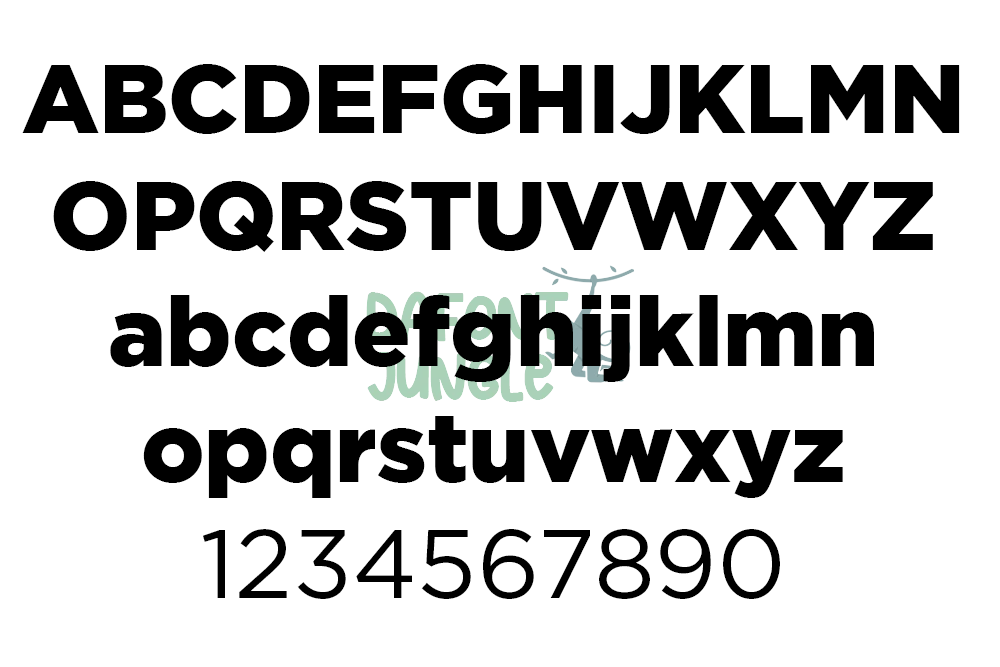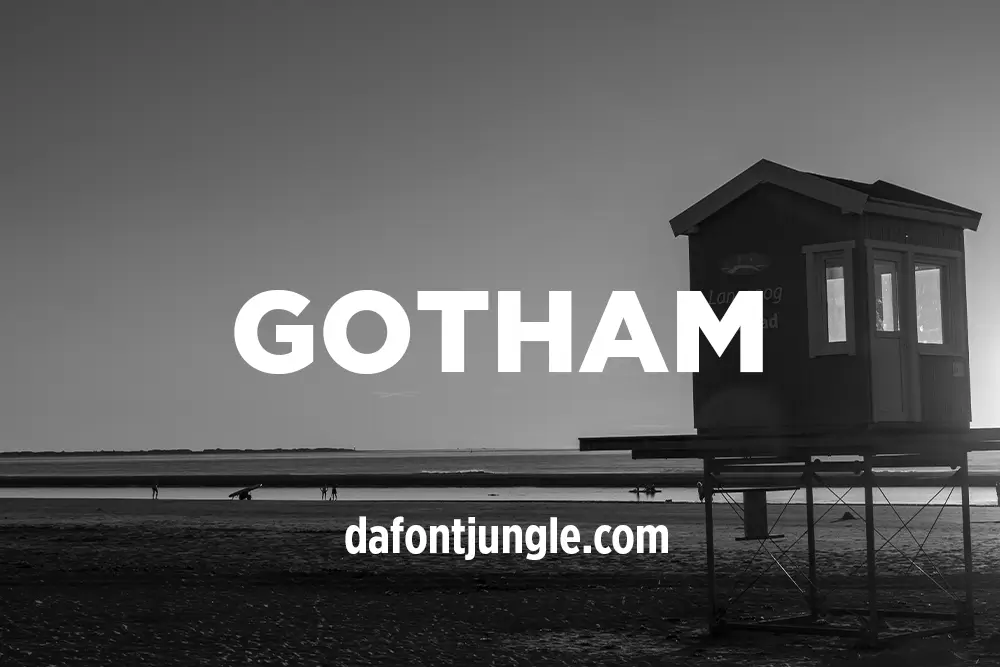
Gotham – Bold Geometric Sans Serif Font Family
Gotham is a clean and confident geometric sans serif font inspired by everyday New York City lettering. You’ll find its roots in painted signs, bronze numbers, storefront glass, and old posters. Designers Jonathan Hoefler and Tobias Frere-Jones created the typeface in 2000. They aimed to capture the honest, no-nonsense feel of urban lettering.
Gotham first appeared in GQ magazine in 2001. It became globally popular in 2008 when Barack Obama used it for his presidential campaign. Since then, it has become one of the most recognized commercial fonts in the world.
The font feels bold but never loud, friendly but not casual. It works well in branding, logos, websites, and editorial layouts. Gotham comes in multiple widths: Narrow, Extra Narrow, and Condensed. Each width includes several weights and matching italics. With over 66 styles, Gotham gives you the flexibility to match many design needs.